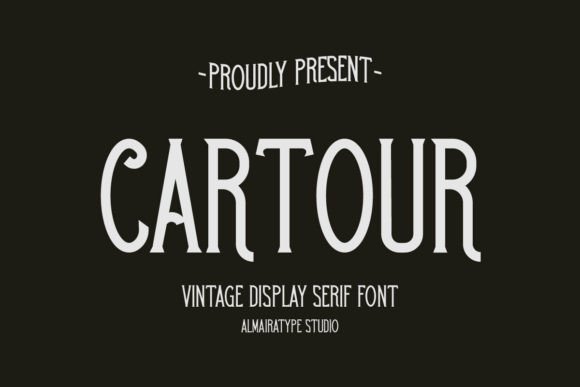
Introducing Cartour Font: The Elegant Vintage Serif for Your Creative Projects
Are you looking for a font that exudes elegance, sophistication, and a touch of vintage charm? Look no further than Cartour Font. This beautiful serif font is perfect for a wide range of creative projects, from logotypes and headlines to corporate identity, brand identity, and more.
What is Cartour Font?
Cartour Font is an elegant vintage serif font designed to add a touch of class and sophistication to your designs. Its classic lines and refined features make it perfect for projects that require a sense of tradition and heritage.
Key Features of Cartour Font
- Elegant Vintage Design: Cartour Font boasts a beautiful, vintage-inspired design that’s perfect for creating sophisticated and eye-catching headlines, logotypes, and more.
- Suitable for a Wide Range of Projects: Whether you’re working on a corporate identity, brand identity, apparel design, poster, music, movie, game, or magazine, Cartour Font is the perfect choice.
- High-Quality Typography: Cartour Font features high-quality typography with precise lines and curves, ensuring that your designs look professional and polished.
- Easy to Read: Despite its elegant design, Cartour Font is easy to read, making it perfect for body text and other applications where legibility is key.
Use Cases for Cartour Font
Cartour Font is an incredibly versatile font that can be used in a wide range of creative projects. Here are some examples of how you can use Cartour Font:
- Logotypes: Create a lasting impression with a custom logotype that showcases your brand’s personality and values.
- Headlines: Add a touch of elegance to your headlines and make them stand out with Cartour Font.
- Corporate Identity: Use Cartour Font to create a professional and cohesive brand identity that reflects your company’s values and mission.
- Brand Identity: Develop a unique brand identity that sets you apart from the competition with Cartour Font.
- Apparel Industry: Create stylish and eye-catching apparel designs that showcase your brand’s personality and style.
- Posters: Design stunning posters that grab attention and leave a lasting impression with Cartour Font.
- Music, Movies, and Games: Add a touch of sophistication to your music, movie, or game projects with Cartour Font.
- Magazines: Use Cartour Font to create visually appealing and easy-to-read magazine designs.
Why Choose Cartour Font?
With so many fonts available, why choose Cartour Font? Here are just a few reasons why Cartour Font stands out from the crowd:
- Unique Design: Cartour Font features a unique and elegant design that’s sure to make your projects stand out.
- High-Quality Typography: Cartour Font is designed with high-quality typography in mind, ensuring that your designs look professional and polished.
- Versatility: Cartour Font can be used in a wide range of creative projects, making it a great addition to any designer’s toolkit.
Tips for Using Cartour Font
Here are a few tips for getting the most out of Cartour Font:
- Use it as a Headline Font: Cartour Font is perfect for headlines and titles, so use it to add a touch of elegance to your designs.
- Pair it with Other Fonts: Experiment with pairing Cartour Font with other fonts to create a unique and visually appealing design.
- Adjust the Size and Color: Play around with different sizes and colors to find the perfect combination for your design.
Cartour Font is an elegant vintage serif font that’s perfect for a wide range of creative projects. With its unique design, high-quality typography, and versatility, it’s a great addition to any designer’s toolkit. Whether you’re working on a logotype, headline, corporate identity, or any other project, Cartour Font is sure to make a lasting impression.